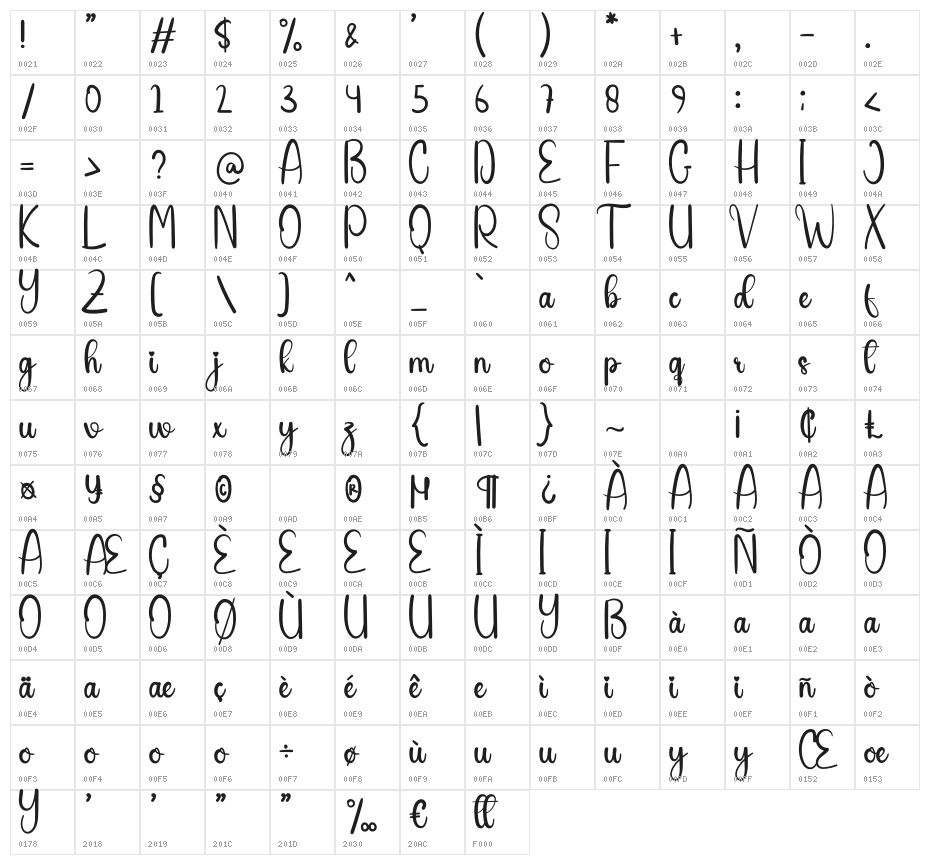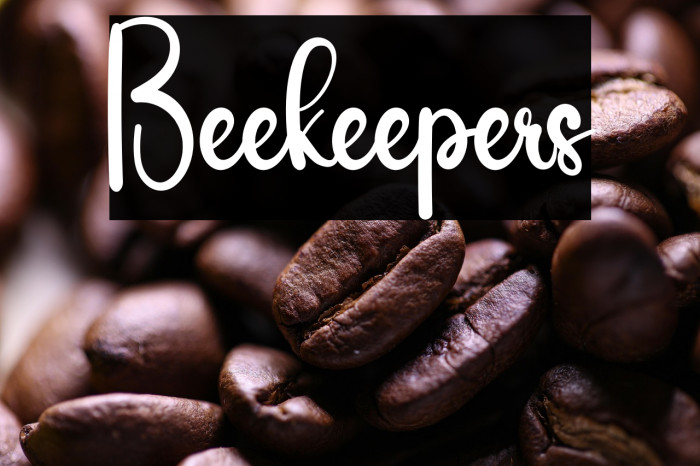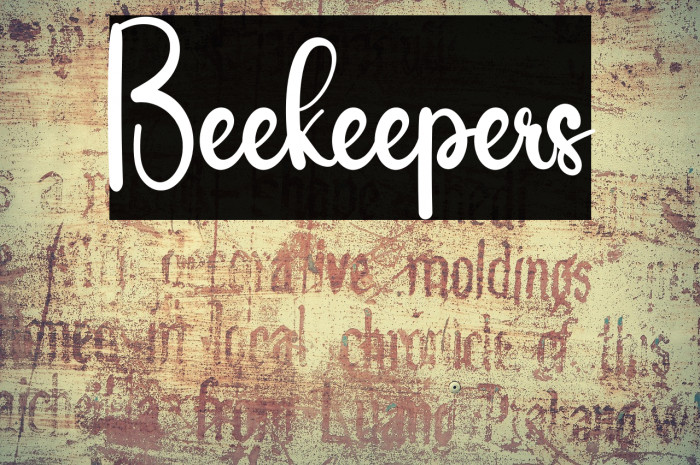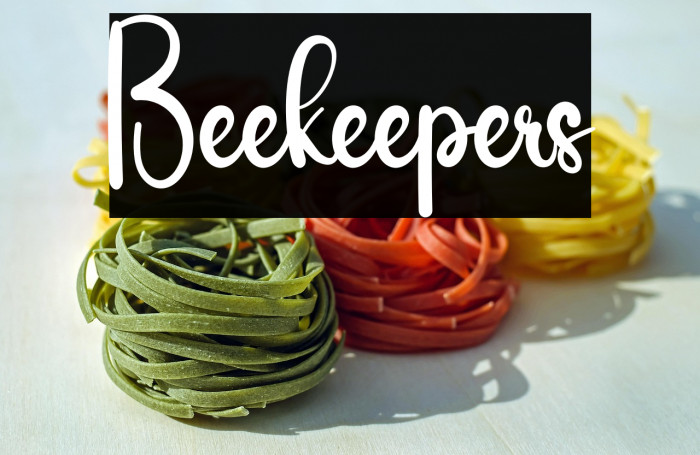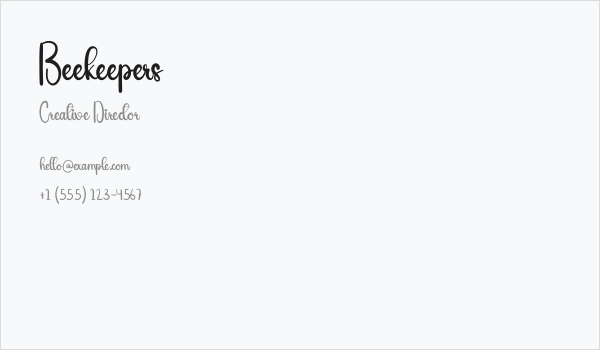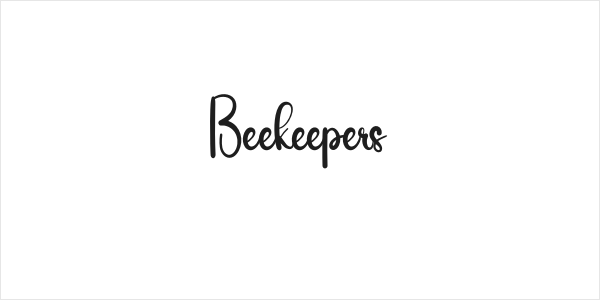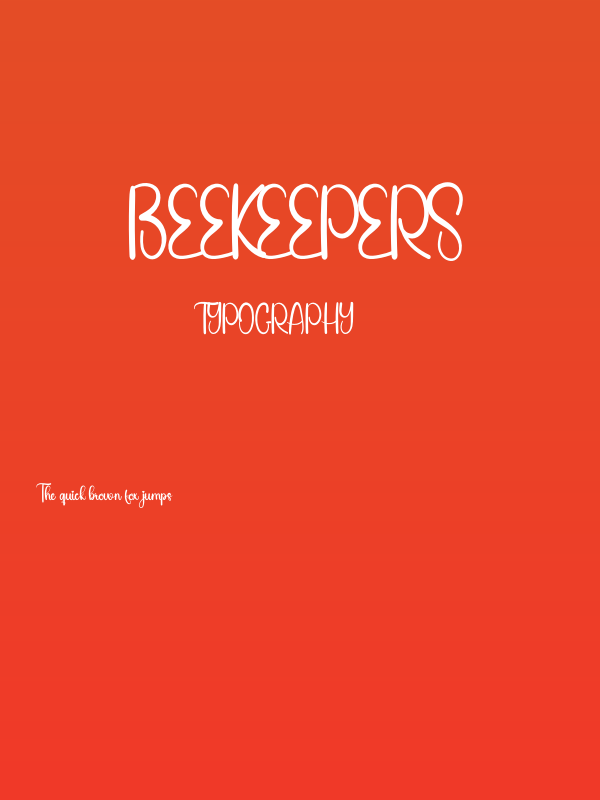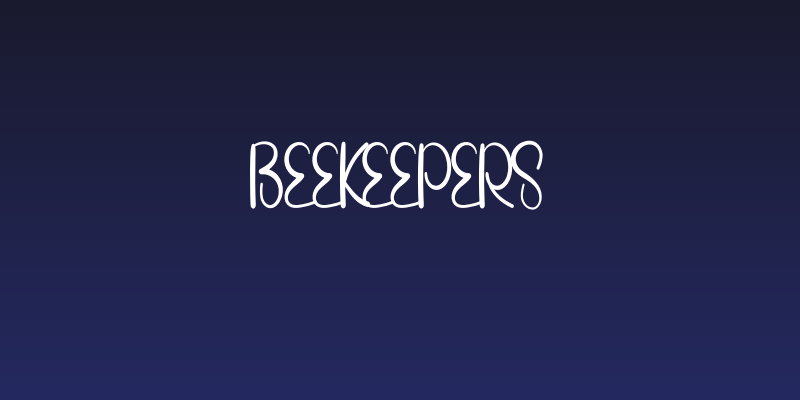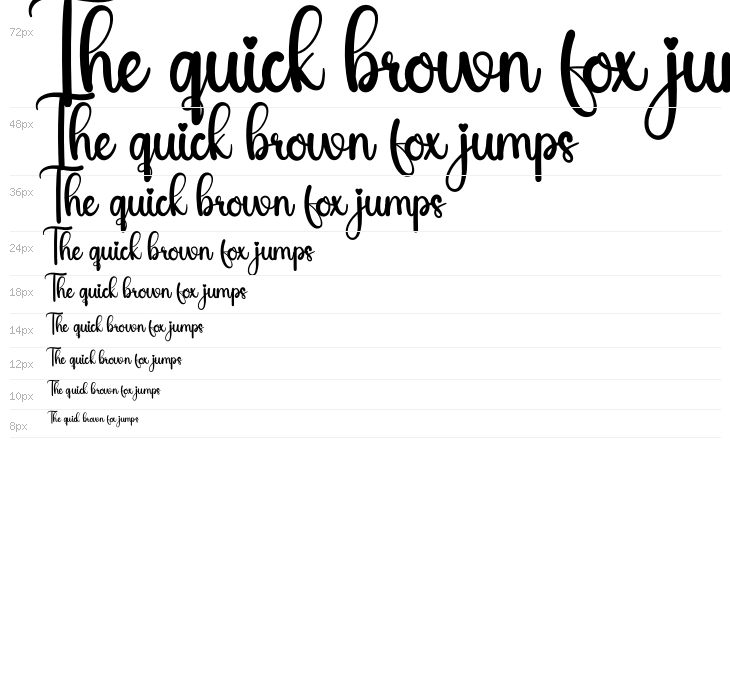
Beekeepers Font
Beekeepers Description
This font features a playful and whimsical handwritten style, characterized by its flowing curves and loops. The uppercase letters are tall and slender, with a slight slant that adds a dynamic feel. The lowercase letters are more rounded and connected, giving a sense of continuity and fluidity. Numbers and special characters maintain the same playful aesthetic, ensuring consistency across all elements. The overall appearance is casual yet stylish, making it suitable for projects that require a personal touch.
Overall StyleCasual, Playful
Use CaseHeadlines, Logos, Invitations
Proposed ProjectsIdeal for greeting cards, invitations, personal branding, and creative projects that require a friendly and approachable look.